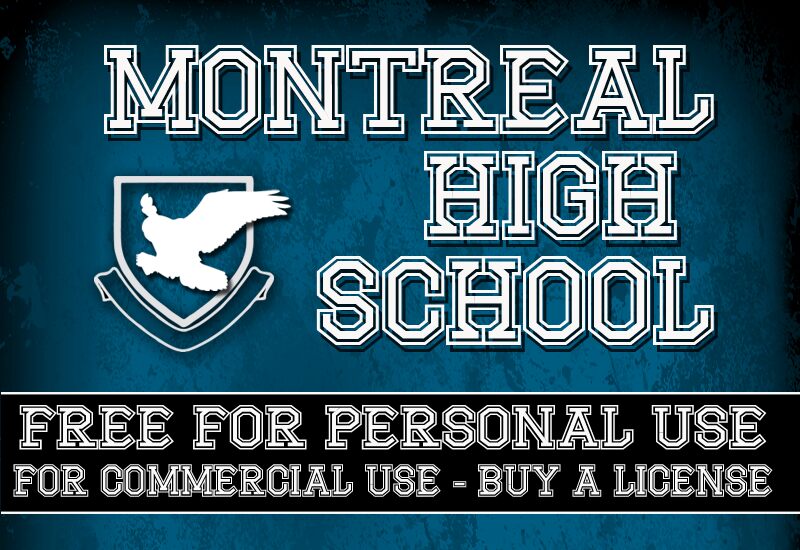
CF Montreal High School by Cloutier Fontes is a free old-school display font rooted in classic varsity lettering. Broad capitals, squared slab serifs, and a crisp double-line interior give each letter the look of a stitched team emblem.
School sports posters and athletic merchandise suit its collegiate structure, yet the same assertive geometry also fits retro diner packaging and event signage. In branding, it can turn a name into a badge-like centerpiece associated with teams, clubs, and campus traditions.
CF Montreal High School Regular is a font by CloutierFontes, designed by Steve Cloutier in 2013.